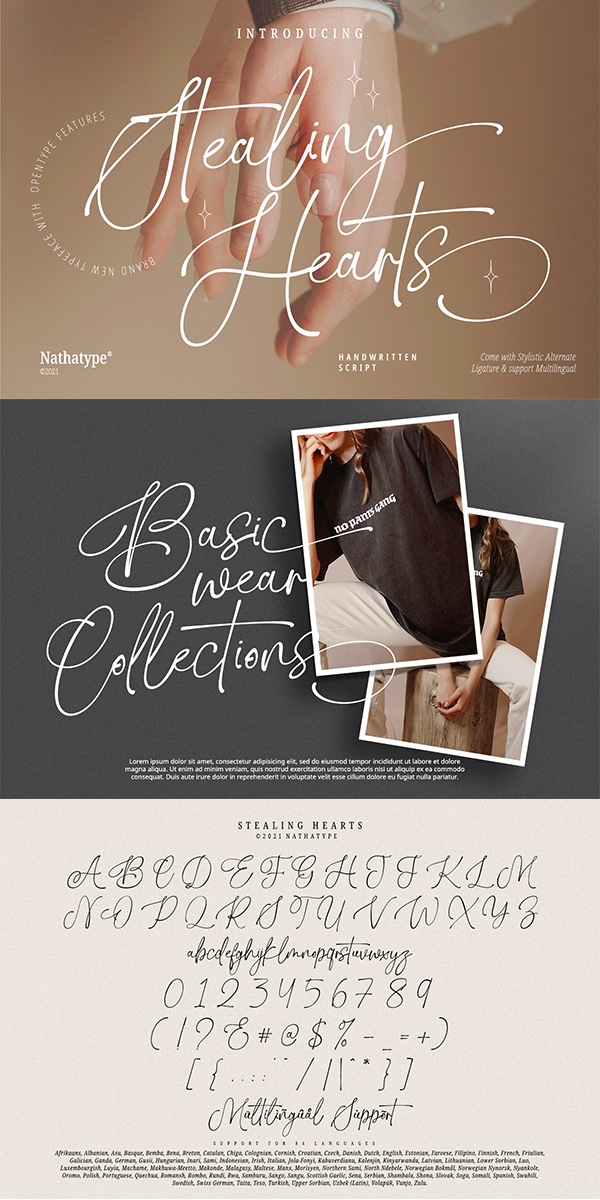
Stealing Hearts Font
About Stealing Hearts
Stealing Hearts font is an elegant handwritten script designed primarily as a captivating handcrafted style. Every swash, stroke, and curve is created to entice happiness and elegance. Ideal to create amazing headings, invitations, logos, and social media graphics.
Our font always includes Multilingual Support to make your branding reach a global audience. See the previews above to get to know how to use them. Enjoy the font!